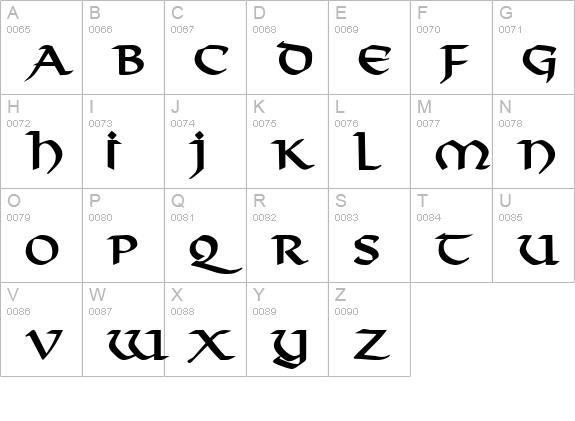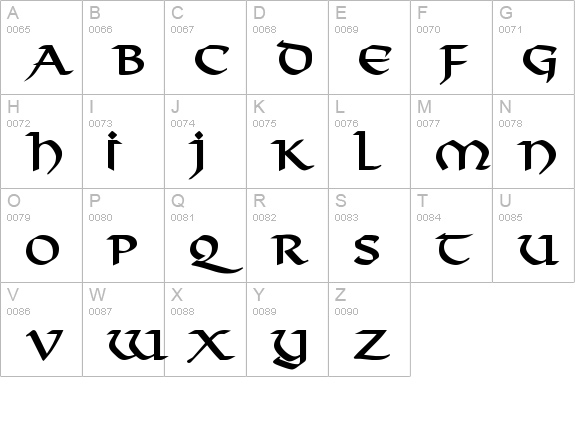
Valhalla Bold is a strong, high-contrast variant in the Valhalla typeface family \xE2\x80\x94 well suited to headlines, attention-grabbing titles, and strong calls-to-action.
Valhalla Bold font is a stunning typeface that exudes strength, boldness, and a touch of medieval charm. With its robust letterforms and powerful presence, it is perfect for creating impactful headlines, captivating logos, and eye-catching designs. The Valhalla Bold font commands attention with its unique combination of modern aesthetics and ancient inspiration. Each character is meticulously crafted, featuring sharp lines, elegant curves, and a distinct personality that adds a sense of authority to any project. This versatile font is suitable for a wide range of design purposes, from branding and advertising to posters and signage. It effortlessly stands out, making it an ideal choice for grabbing attention and leaving a lasting impression. What makes Valhalla Bold font even more appealing is that it is free! That's right, this incredible typeface is freely available to download at FontsMarket.com. Now, you can enhance your creative projects without worrying about any additional costs. It's a fantastic opportunity to add a touch of strength and sophistication to your designs, all while staying within your budget. So, whether you're a professional graphic designer or an aspiring artist, Valhalla Bold font is the perfect addition to your font library. Embrace its boldness, embrace its power, and let your creativity soar with this remarkable typeface. Download it for free at FontsMarket.com and watch your designs come to life with a touch of Valhalla Bold font's majestic allure.